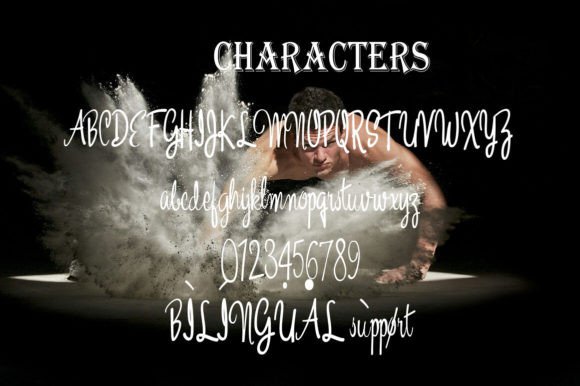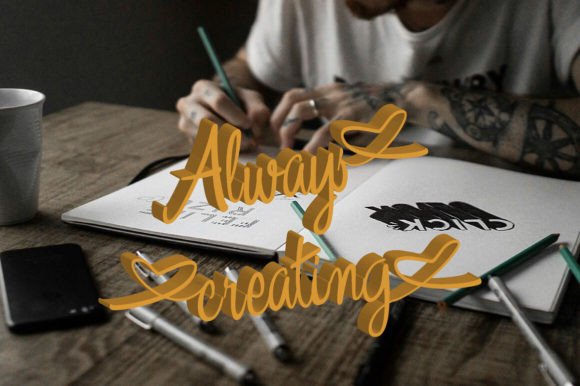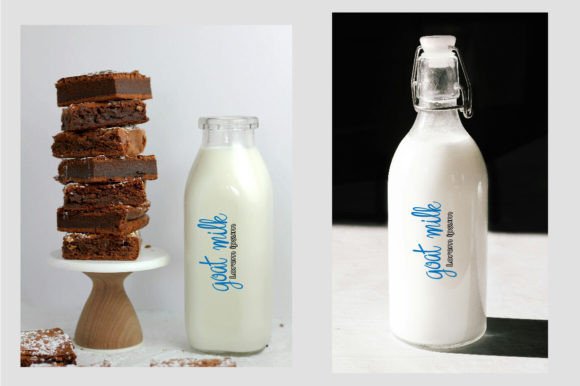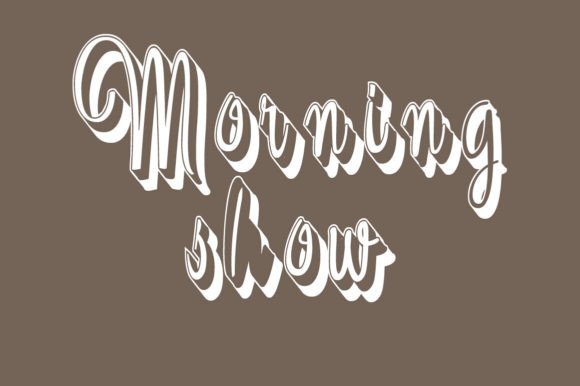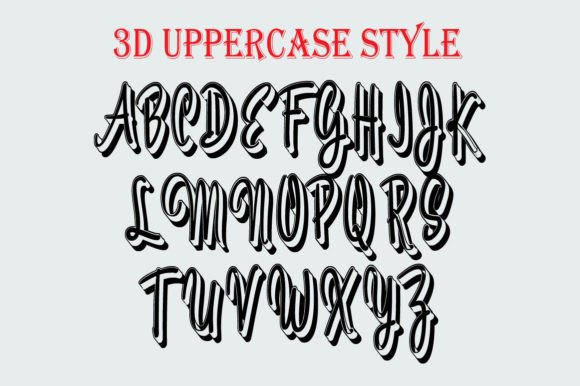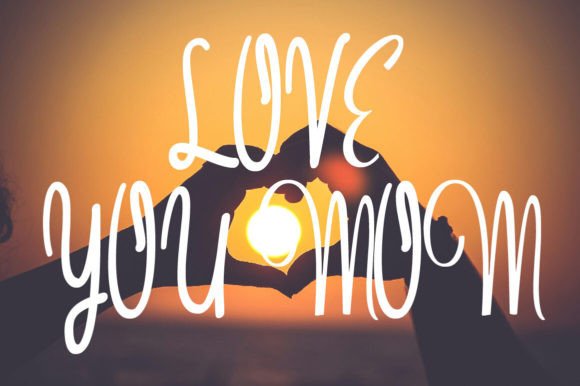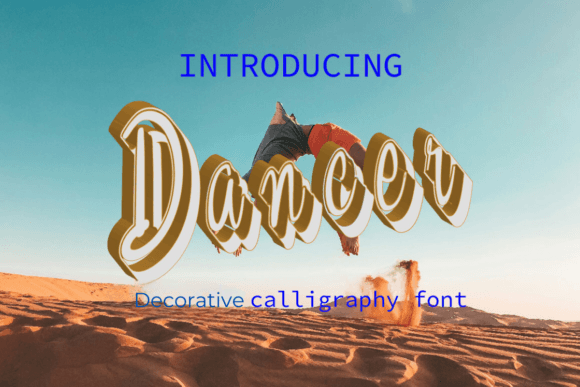
Introducing Dancer Font: A Beautifully Crafted Curve Script Typeface
Are you looking for a font that can add a touch of personality and elegance to your designs? Look no further than Dancer Font, a new carefully crafted and nicely balanced curve on script typefaces with a unique character. This stunning font is perfect for designers and crafters who want to create eye-catching and stylish projects that stand out from the crowd.
What Makes Dancer Font Special?
Dancer Font is a beautifully designed script typeface that boasts a range of features that make it ideal for a variety of design projects. Here are just a few things that make Dancer Font special:
- Curve Script Typeface: Dancer Font features a smooth and flowing curve script design that is both elegant and sophisticated.
- Personality: This font has a unique character that sets it apart from other script typefaces, making it perfect for designers who want to add a touch of personality to their designs.
- 3D Style Alternate: Dancer Font comes with a 3D style alternate feature that allows you to create stunning 3D text effects with ease.
- Stylish Alternate Characters: The font also features stylish alternate characters that can be used to add a touch of retro flair to your designs.
Uses for Dancer Font
Dancer Font is a versatile font that can be used for a wide range of design projects, including:
- Logo Design: Create a stunning logo for your business or brand with Dancer Font.
- Badge Design: Design eye-catching badges and insignia with this beautiful font.
- Packaging: Use Dancer Font to create stylish and eye-catching packaging designs.
- Headline and Poster Design: Create stunning headlines and posters with this elegant font.
- T-Shirt and Apparel Design: Design stylish t-shirts and apparel with Dancer Font.
- Greeting Card and Wedding Invitation Design: Create beautiful greeting cards and wedding invitations with this lovely font.
Using Dancer Font with OpenType Features
Dancer Font comes with a range of OpenType features that allow you to customize and extend the font to suit your design needs. Here are just a few ways you can use OpenType features with Dancer Font:
- 3D Alternate Style: Use the 3D alternate style feature to create stunning 3D text effects.
Tips for Using Dancer Font
Here are a few tips for using Dancer Font to get the best results:
- Mix and Match: Mix and match the New Dancer Calligraphy Font with alternative characters to fit your project.
- Experiment with OpenType Features: Experiment with the OpenType features to discover new and interesting ways to use the font.
- Use for Display Text: Use Dancer Font for display text, such as headlines and titles, to add a touch of elegance and sophistication.
Dancer Font is a beautifully crafted curve script typeface that is perfect for designers and crafters who want to add a touch of personality and elegance to their designs. With its range of features, including 3D style alternate and stylish alternate characters, this font is ideal for a wide range of design projects. Whether you’re creating a logo, badge, packaging, or headline, Dancer Font is sure to impress.